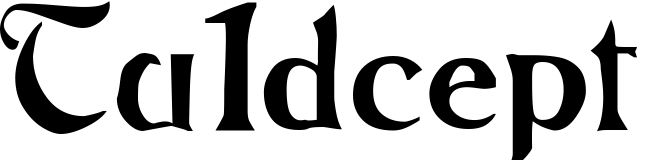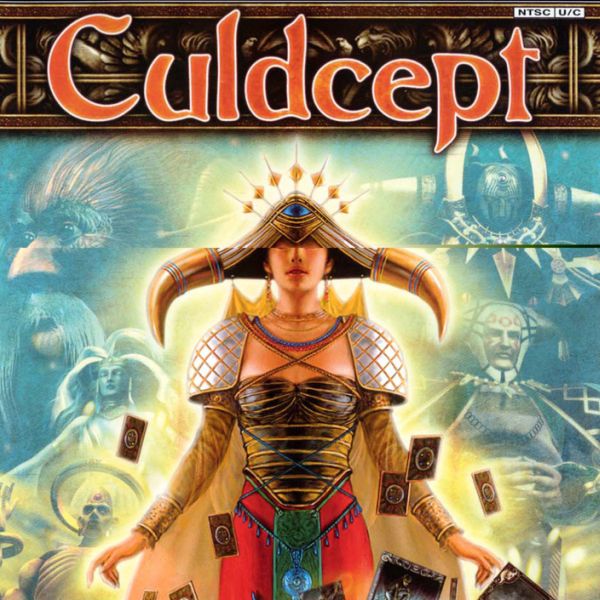
Culdcept Font
Fonts in UseCuldcept is a strategic card-based video game series developed by Omiya Soft and first released in 1997.
The game title on the box art most likely features the decorative font Bucephalus, designed by David Nalle in 1993. Further information about the font can be found here.